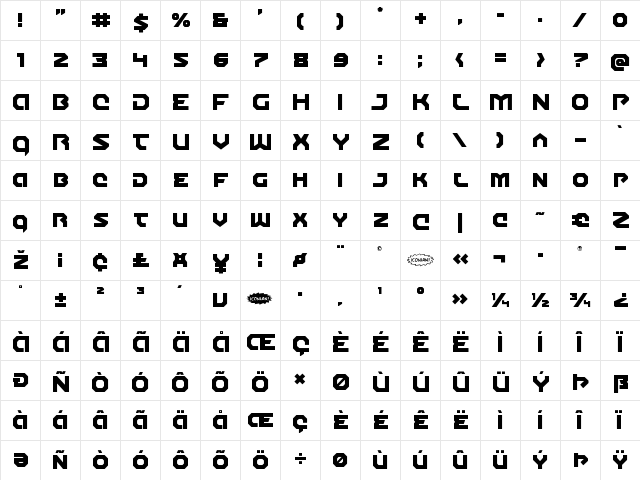
Gunner Storm Drop Regular
Design Context for Gunner Storm Drop Typeface
Gunner Storm Drop is a composed and adaptable typeface that performs quietly and consistently across a wide range of design contexts.